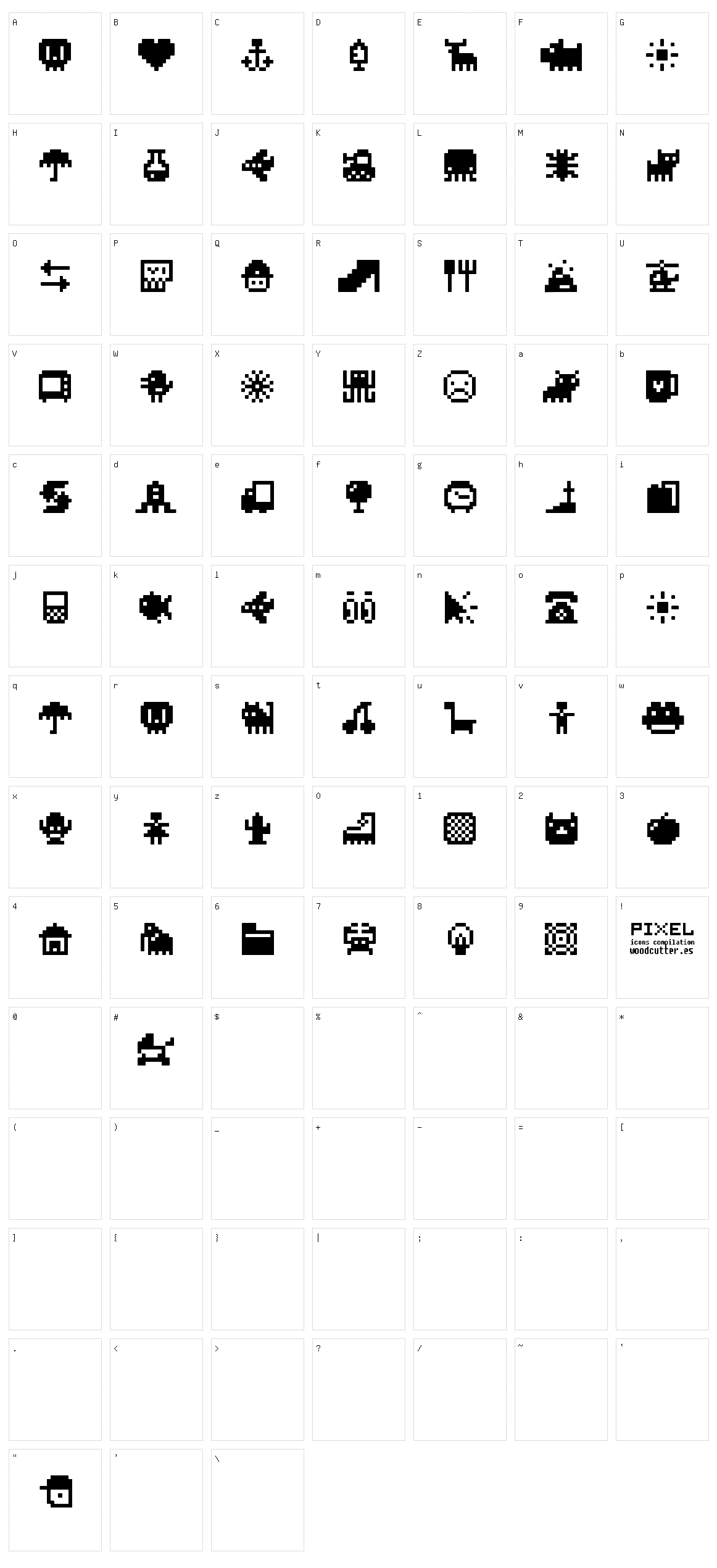
The free font Pixel Icons Compilation is carefully designed by Woodcutter, showcasing a thoughtful balance of creativity and usability and belongs to the Bitmap font family. When you download the ZIP file, it contains only 10.72 KB of font files, making it lightweight and quick to download. Please review the license details below to understand permitted usage and distribution rights. If license information is not available, we recommend using this font for personal projects only or contacting the author directly for commercial usage permissions.